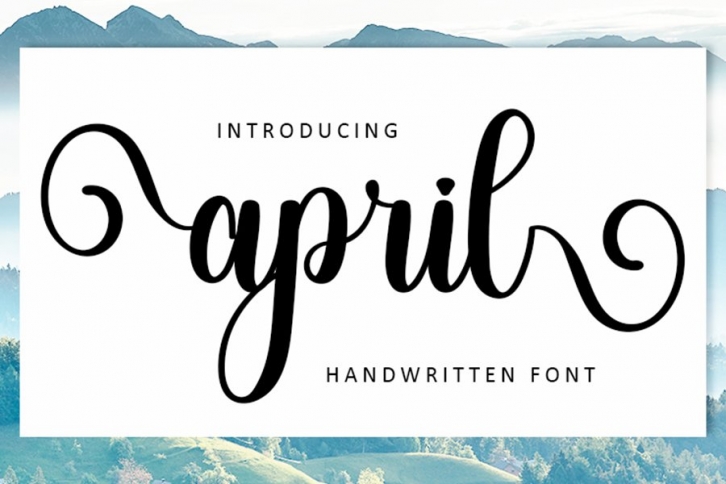
April is a trendy and unique font with an authentic style. It was designed by FreshType INK and it's a great choice for creative people who need such a font. It was released on June 9, 2022 and the file size is 1.62 MB. April will add an organic vibe to any design idea!